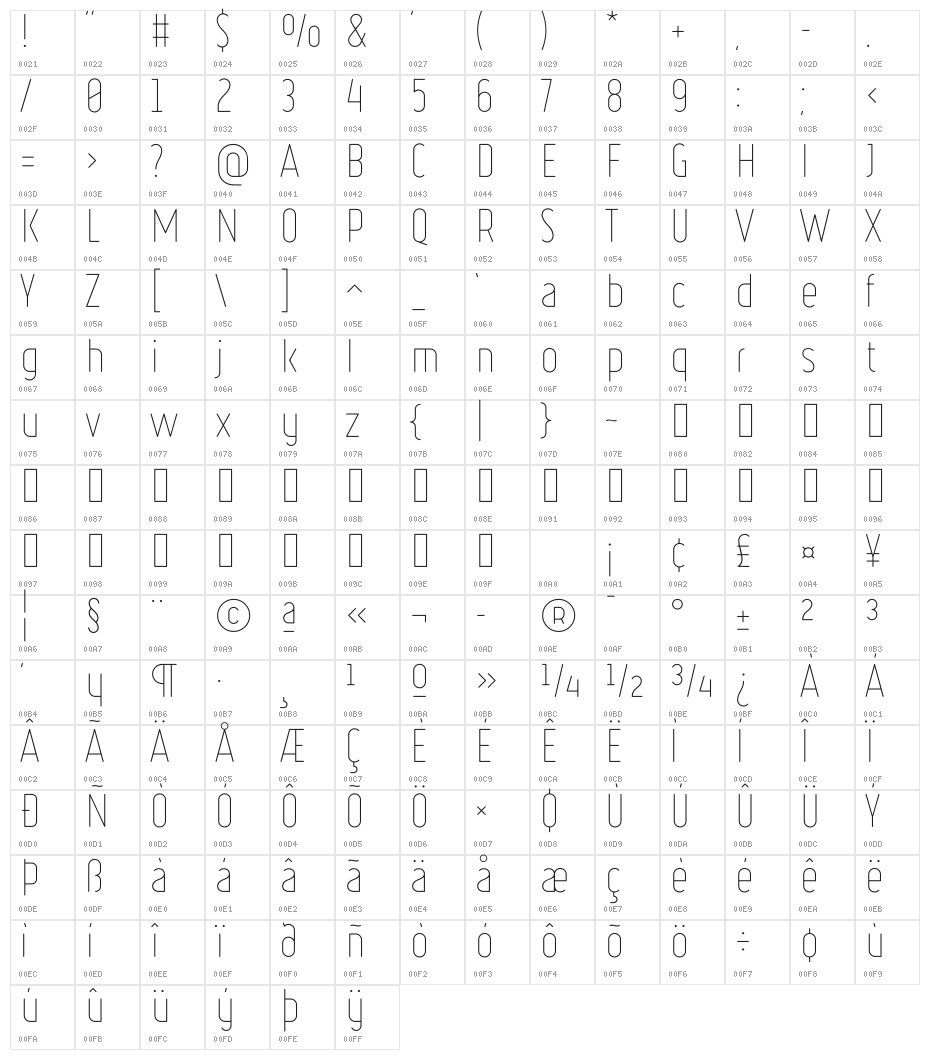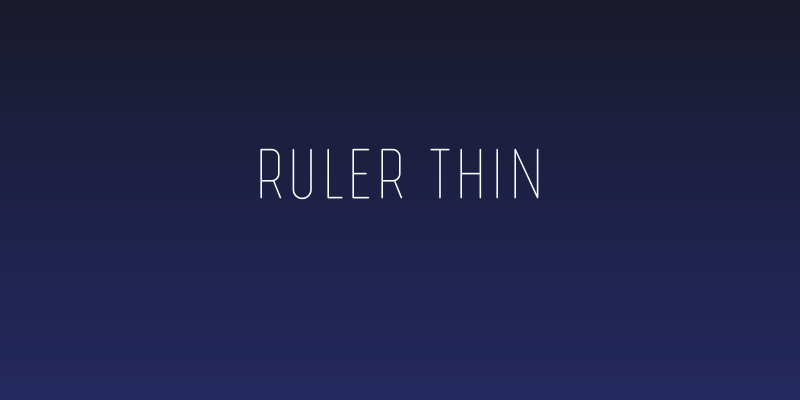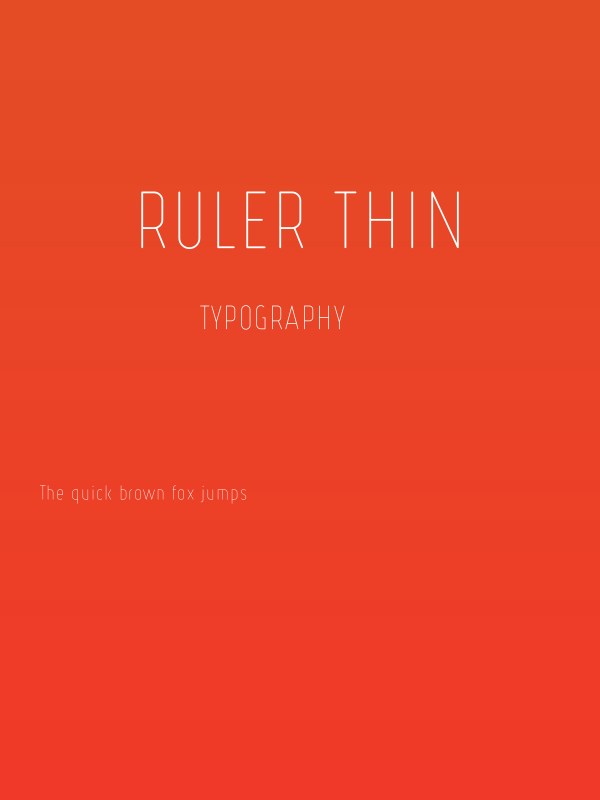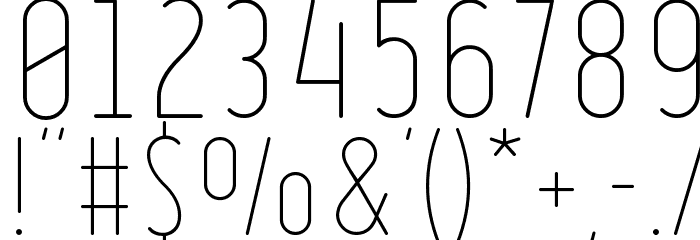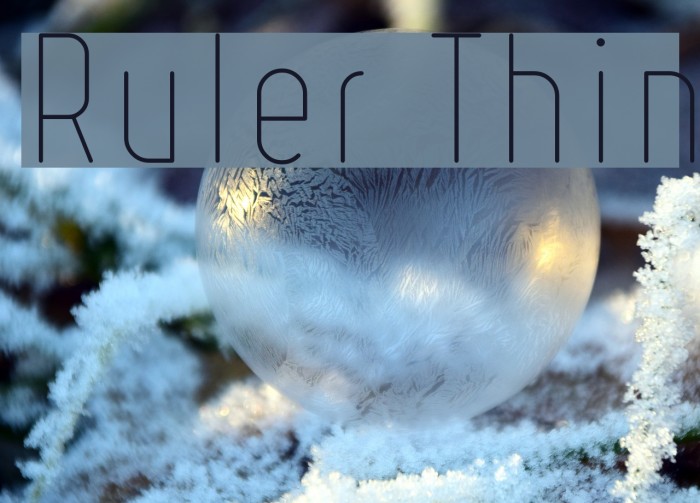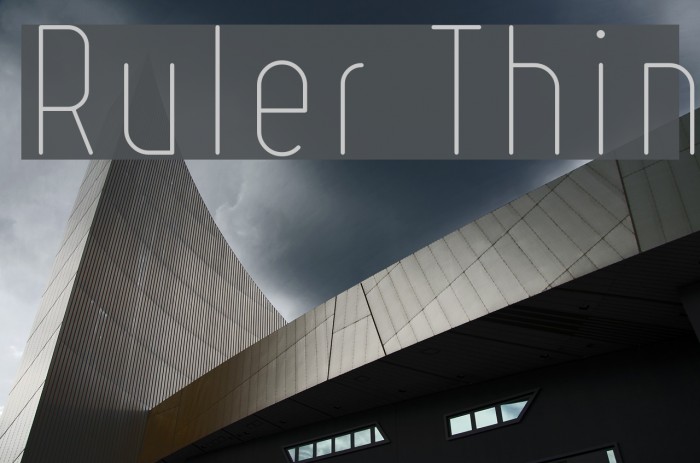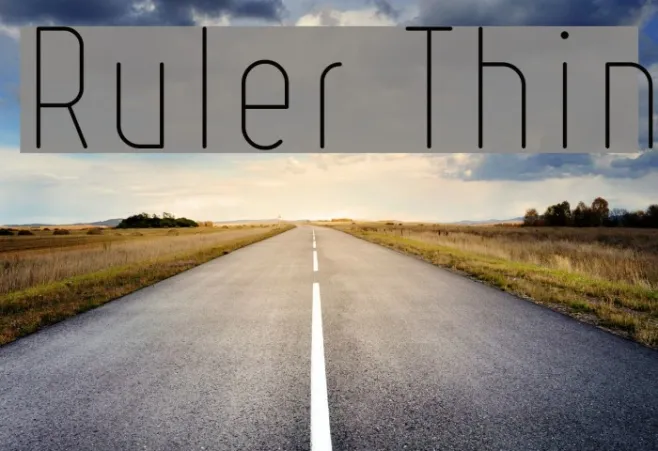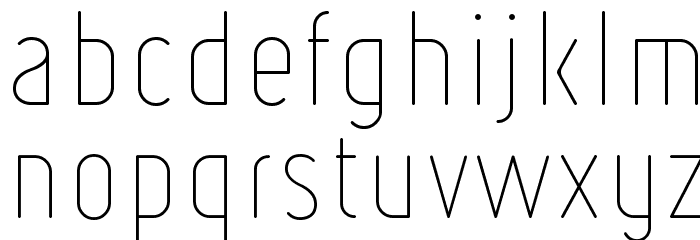
Ruler Thin Font
Ruler Thin Description
This font features a sleek and modern design with thin, elongated letterforms that convey a sense of elegance and minimalism. The characters are uniformly narrow, with consistent stroke widths that give the font a clean and sophisticated appearance. The uppercase and lowercase letters maintain a geometric structure, while the numerals and special characters blend seamlessly into the overall style. This font's simplicity and clarity make it highly legible, even at smaller sizes, while its contemporary aesthetic is perfect for modern design projects.
| Proposed Projects | Ideal for branding, editorial design, fashion magazines, and minimalist web design. |